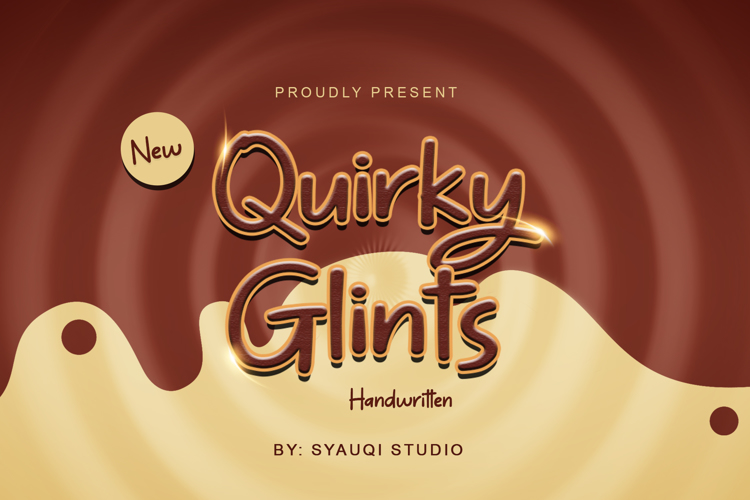
Quirky Glints Font
Introducing Quirky Glints: Fun and Playful Handwritten Font
Quirky Glints is a delightful and whimsical font that embodies the spirit of playful creativity. Designed with the charm of natural handwriting, Quirky Glints infuses any text with a sense of joy and spontaneity. Each character is crafted to capture the essence of authentic, hand-drawn typography, making it perfect for projects that seek to add a touch of fun and personal flair.